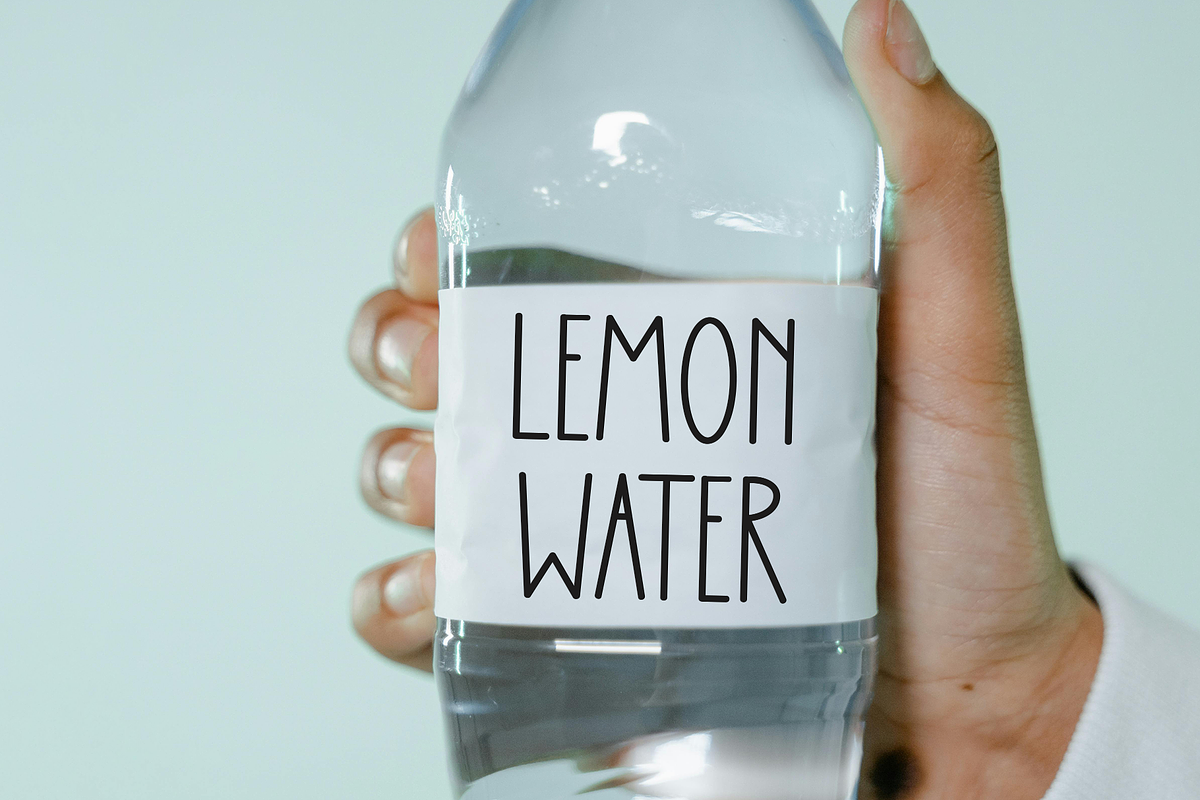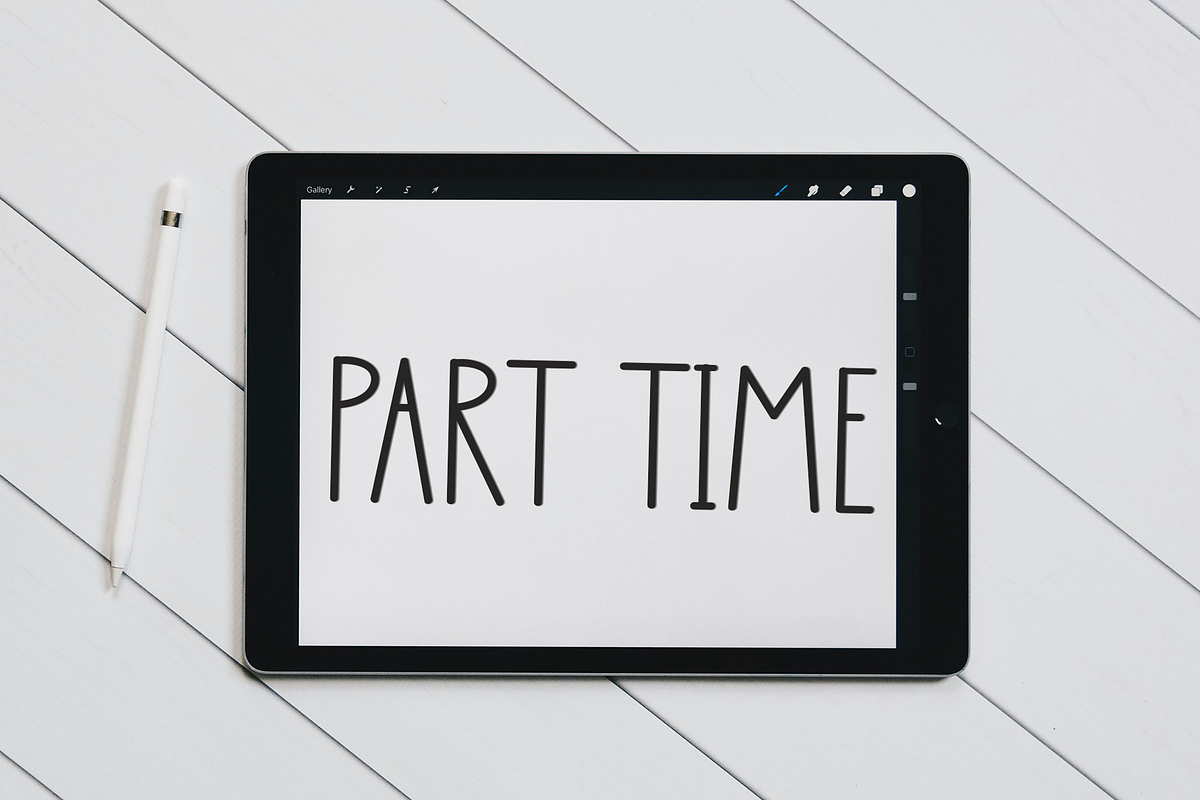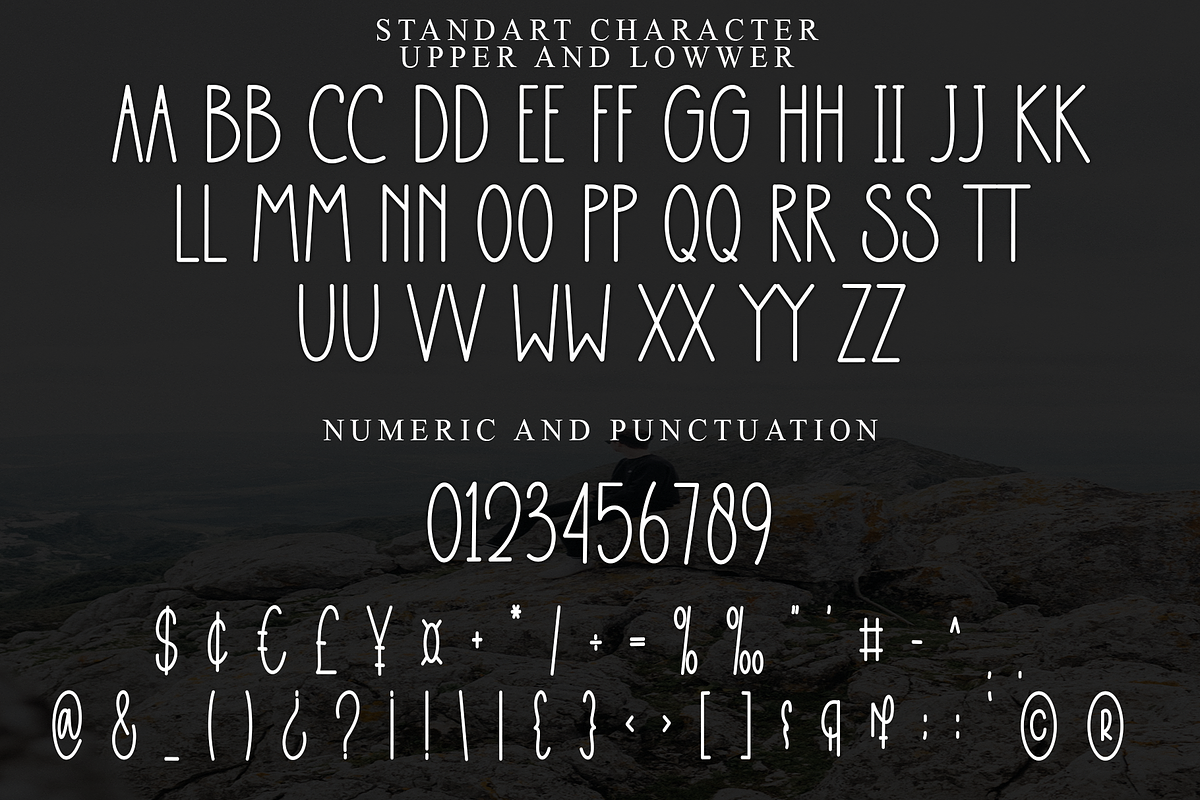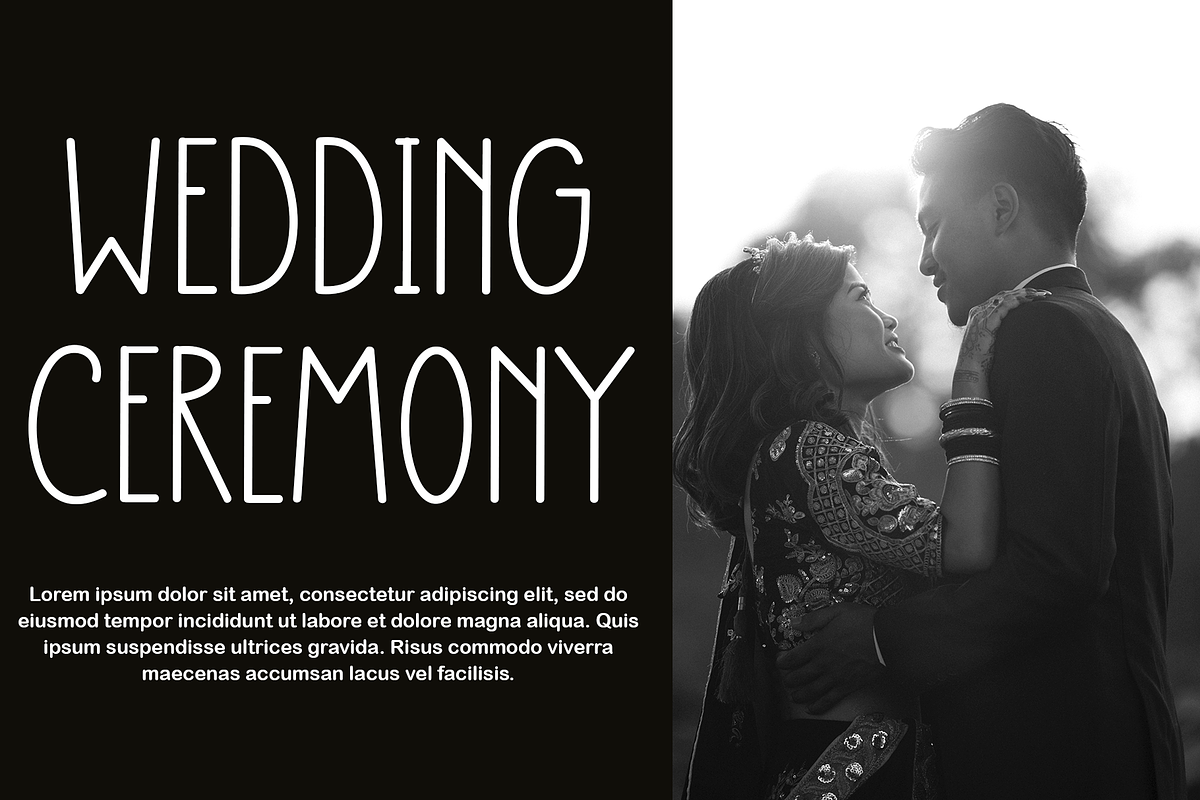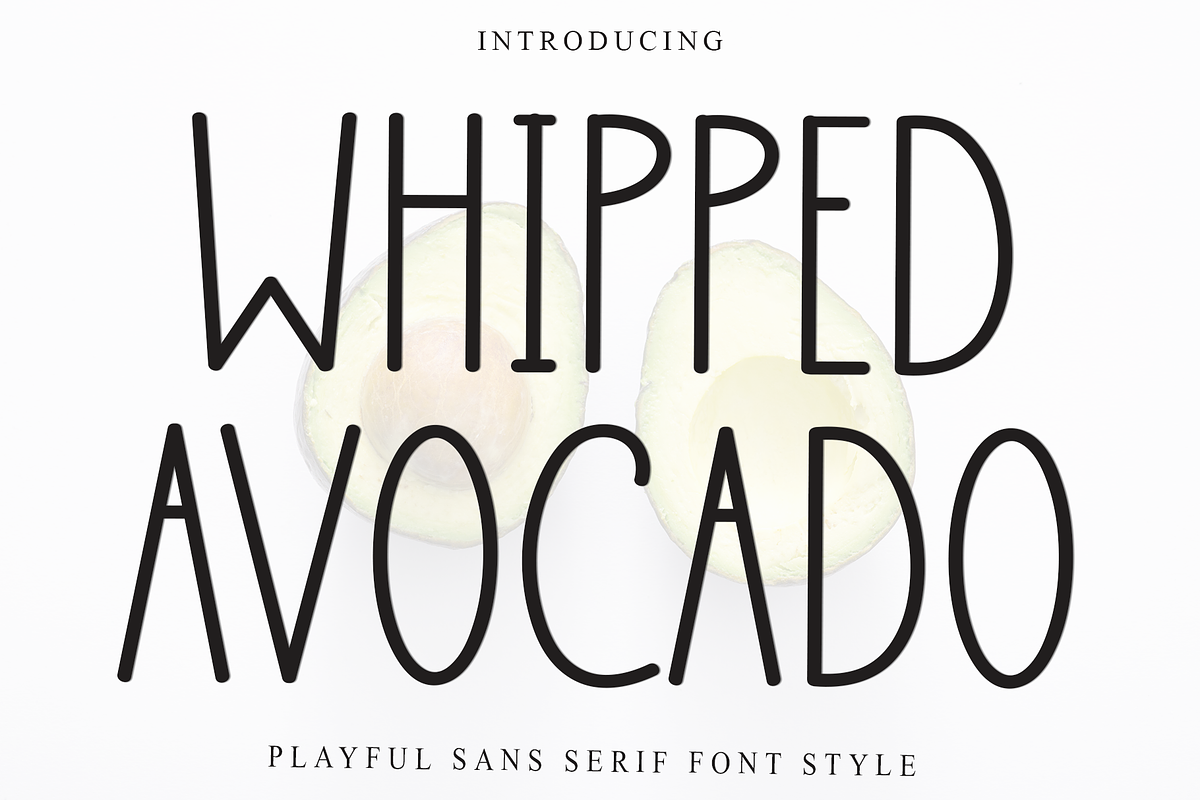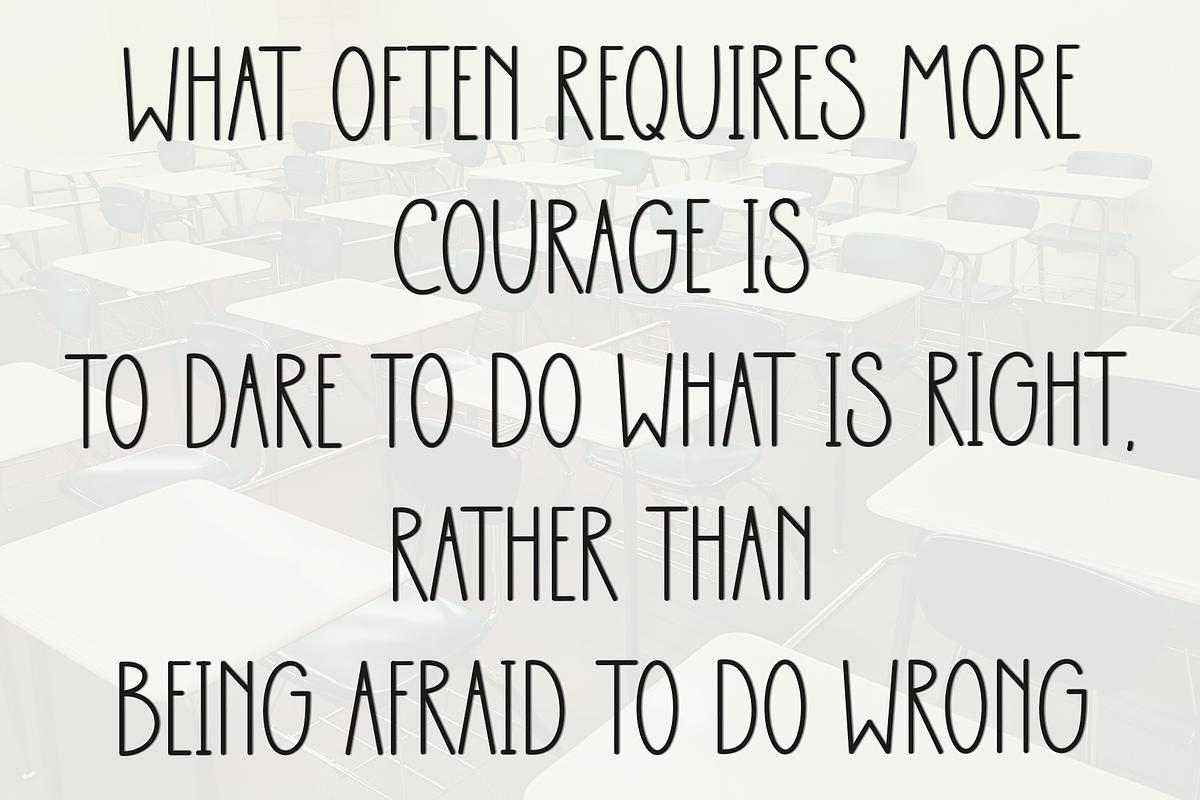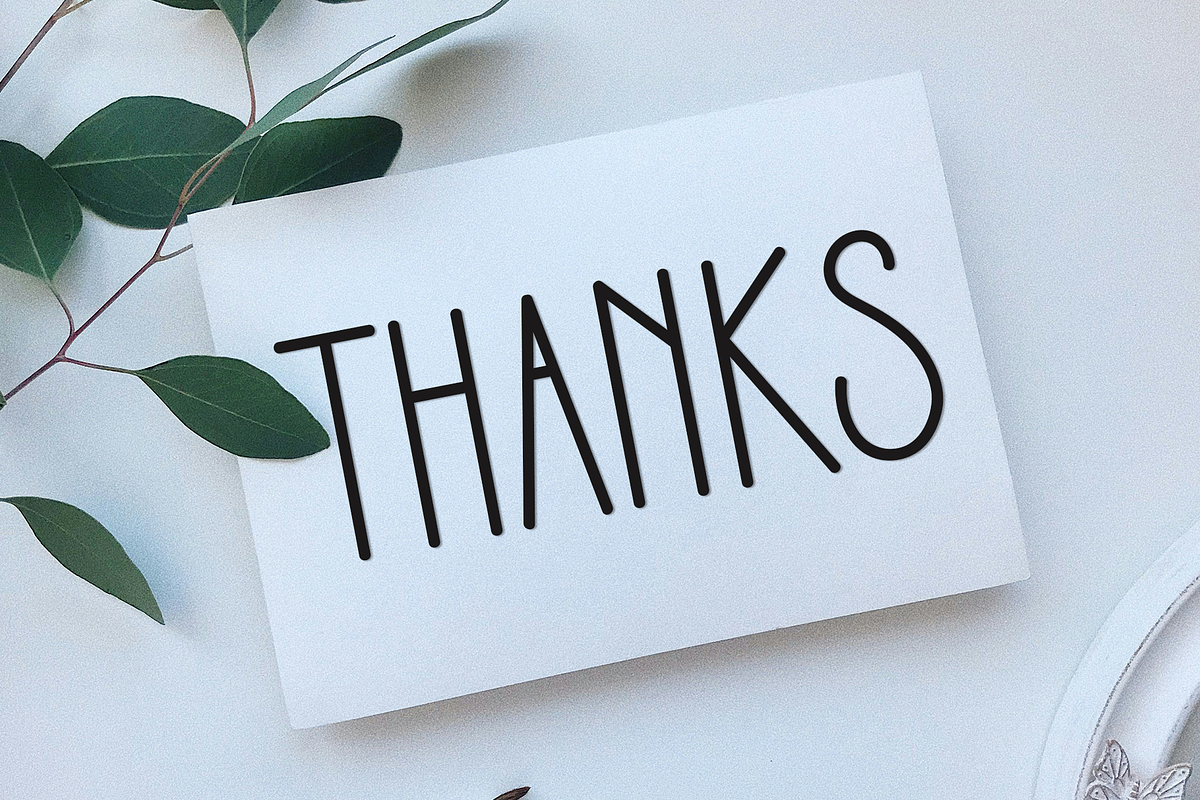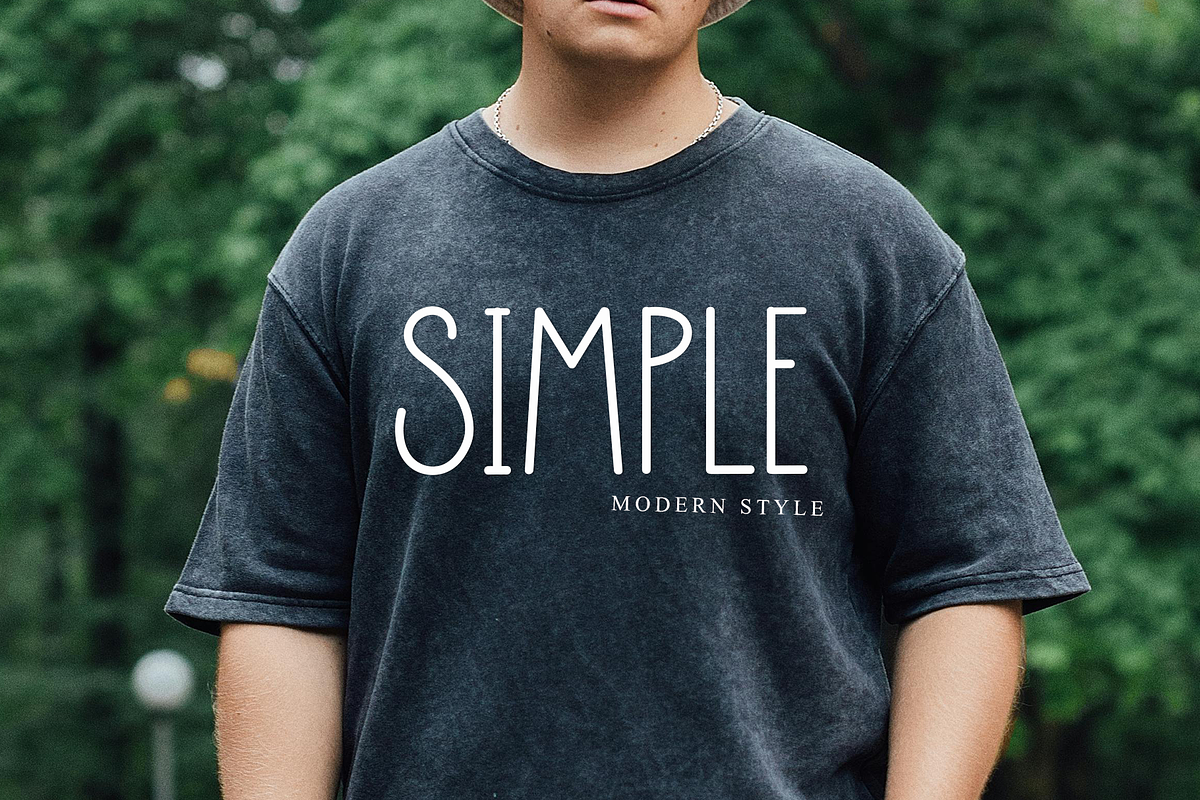
Whipped Avocado
Whipped Avocado is a beautiful and eye-catching font designed with a soft, unique touch. Its distinctive strokes give it a special character, making it meaningful and versatile for future use. With various characters, it’s perfect for design projects, crafts, and other creative works.